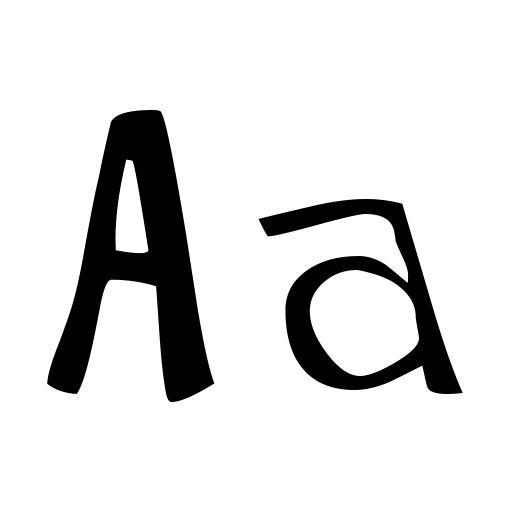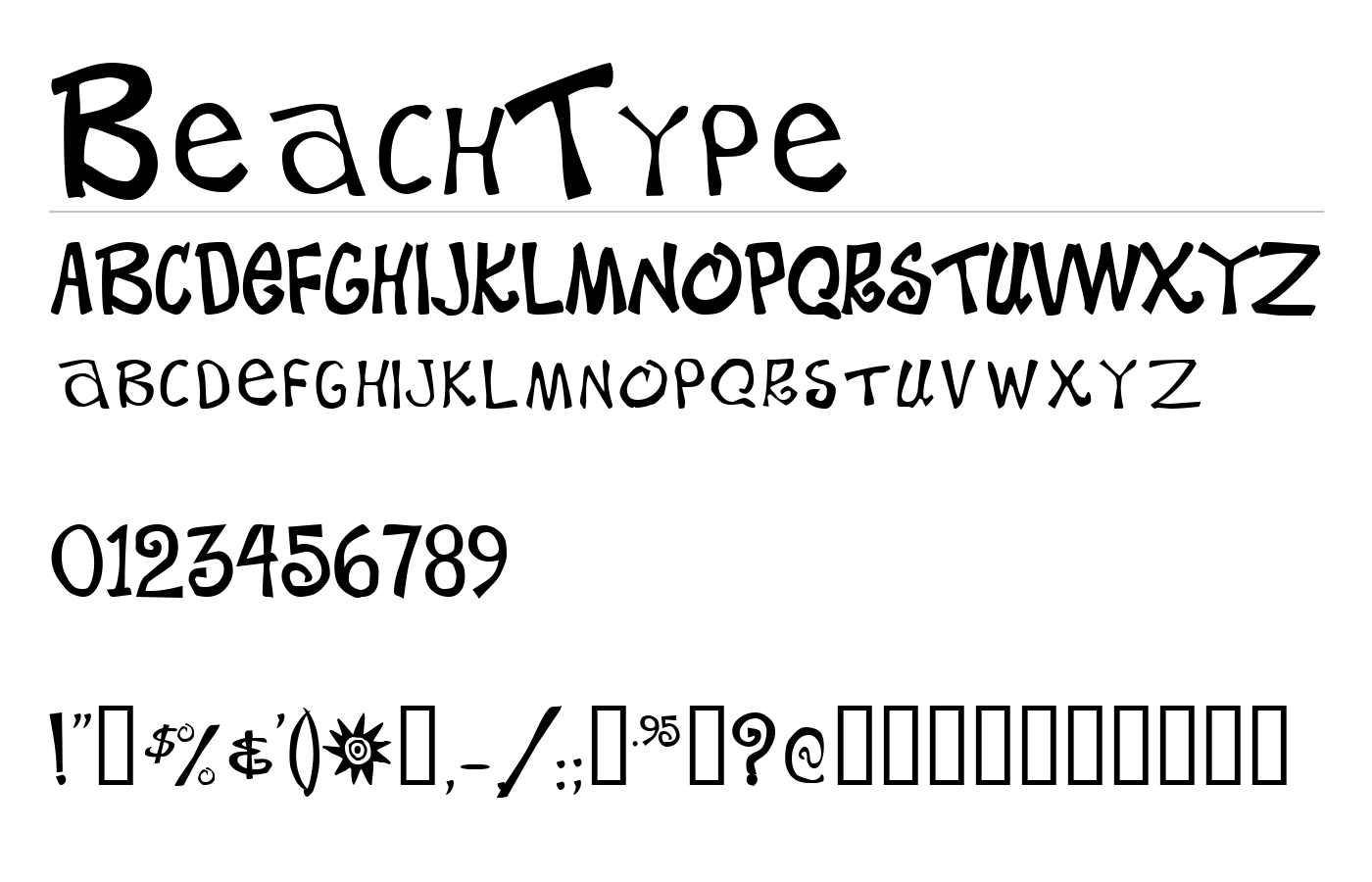
BeachType is a playful, hand-drawn sans serif font with quirky, uneven letterforms that give it a casual and fun vibe. Its irregular shapes and varying stroke widths make it ideal for creative, informal designs like beach-themed branding, children’s materials, or lively posters, where a relaxed and friendly personality is desired. This font works best in headlines and display uses where its unique character can shine.
BeachType Font
About BeachType Font